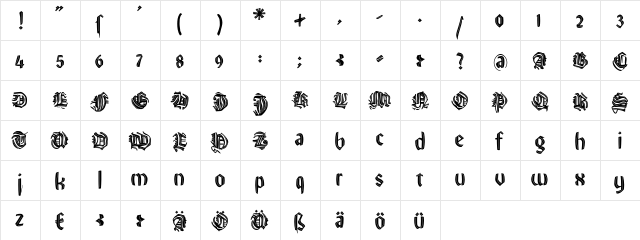
WeimarInline Regular
Design Context for WeimarInline Typeface
WeimarInline brings ornamental detail and strong personality to headlines and identities, where visual impact matters more than quiet functionality.
Font Pairing: Pair with a clean neutral sans-serif for body copy to let WeimarInline's character lead without overwhelming the composition.
Pro Tip: Treat WeimarInline as the centrepiece of your typographic hierarchy. One strong heading set in a decorative face can carry an entire layout.